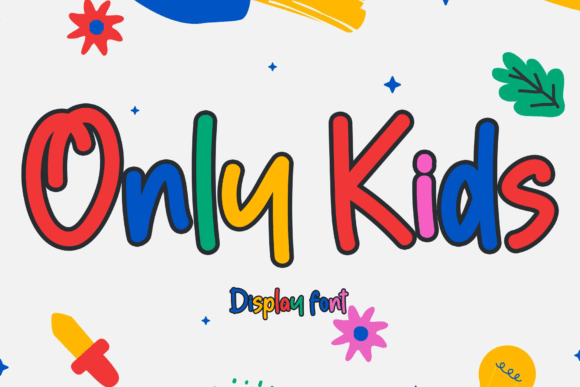
Only Kids Font: A Playful Touch for Editorial Joy
Last Tuesday, I sat down to refresh the cover of a seasonal recipe ebook—something warm and inviting for early spring. The content was all about simple gatherings: shared meals, handwritten notes, the kind of cooking that feels like coming home. But the existing title font felt too rigid, too polished. It didn’t breathe with the stories inside. That’s when I opened my font library and landed on Only Kids.
From the first keystroke, it felt like a shift—not just in aesthetics, but in intention. Only Kids isn’t trying to be serious. It doesn’t aim for neutrality or authority. Instead, it leans into lightness: rounded terminals, gentle curves, uneven baselines that hint at chalk on a sunlit sidewalk. The letterforms have personality without shouting—playful, yes, but never childish in a condescending way. There’s warmth in the spacing, a soft rhythm in how the letters sit beside one another. It’s the kind of display font that makes readers pause, smile, and lean in—not because it’s flashy, but because it feels human.
I used Only Kids for the ebook’s main title and chapter openers. In print-ready PDFs, it held up beautifully at 36–48pt sizes—crisp, legible, full of charm. On screen, especially in newsletter headers or digital magazine covers, it retained its friendliness even at smaller display sizes (24–32pt), as long as line height and contrast were thoughtfully adjusted. It’s not meant for body text—no display font is—but that’s precisely where its strength lies: in framing, in signaling tone, in giving a publication its first impression.
What surprised me most was how well it worked across formats. For a printable wedding guide I designed last month, Only Kids anchored section headings like “First Dance Tips” and “Floral Mood Board”—adding whimsy without undermining sincerity. In a coaching workbook for mindful parenting, it introduced reflection prompts with gentle authority: not prescriptive, but encouraging. Even in a digital magazine layout, where editorial hierarchy matters deeply, pairing Only Kids with a quiet serif font for body copy created a lovely tension—joy meeting groundedness.
That pairing is key. Only Kids thrives when balanced. I often pair it with a warm, readable serif—think something like Merriweather or Adobe Garamond—for longer passages. For captions, navigation menus, or sidebars, a clean sans serif like Inter or Lato keeps things legible and modern. The contrast works: Only Kids sets the mood; the supporting type carries the meaning. It’s a classic display font strategy, but one that feels especially resonant here—because Only Kids doesn’t compete. It invites.
Visually, it’s got subtle details that reward attention: alternate characters for ‘a’, ‘g’, and ‘y’ add variety without chaos; optional ligatures soften transitions between certain letter pairs; and the consistent x-height gives it stability across weights. It includes regular and bold styles—enough for clear hierarchy without overwhelming choice. No italics or condensed variants, which is fine: this isn’t a utility font. It’s a moment-maker.
In practice, Only Kids shines brightest where tone matters more than terseness: blog headers that welcome rather than announce, chapter titles that feel like turning a page in a well-loved storybook, pull quotes that stand out without disrupting flow. I’ve used it for social media graphics too—especially Instagram carousels introducing new content series—where its friendly energy helps content feel approachable, not algorithmic.
It’s not for every project. If you’re designing a legal whitepaper or a technical documentation site, Only Kids would misalign with audience expectations. And while it’s highly legible at display sizes, it’s not optimized for mobile body text or dense paragraph stacks. Its magic lives in brevity: a title, a tagline, a single evocative word. That restraint is part of what makes it work so well—it asks you to choose wisely where to place joy.
What stays with me isn’t just how Only Kids looks, but how it shifts the design process itself. Choosing it slowed me down—not in a frustrating way, but in the way good typography should: inviting reflection on voice, audience, and intention. When I selected it for the recipe ebook’s cover, I wasn’t just picking a font. I was choosing a feeling: unhurried, generous, quietly joyful. And that feeling carried through every layout decision after.
If you’re redesigning a lifestyle blog header and want something that says “come in, stay awhile,” Only Kids fits like a favorite sweater. If you’re building a printable planner for creative professionals who crave both structure and soul, it adds just enough levity to keep things from feeling rigid. And if you’re crafting a digital magazine feature on childhood imagination—or really, any topic rooted in wonder—it becomes more than decoration. It becomes part of the narrative.